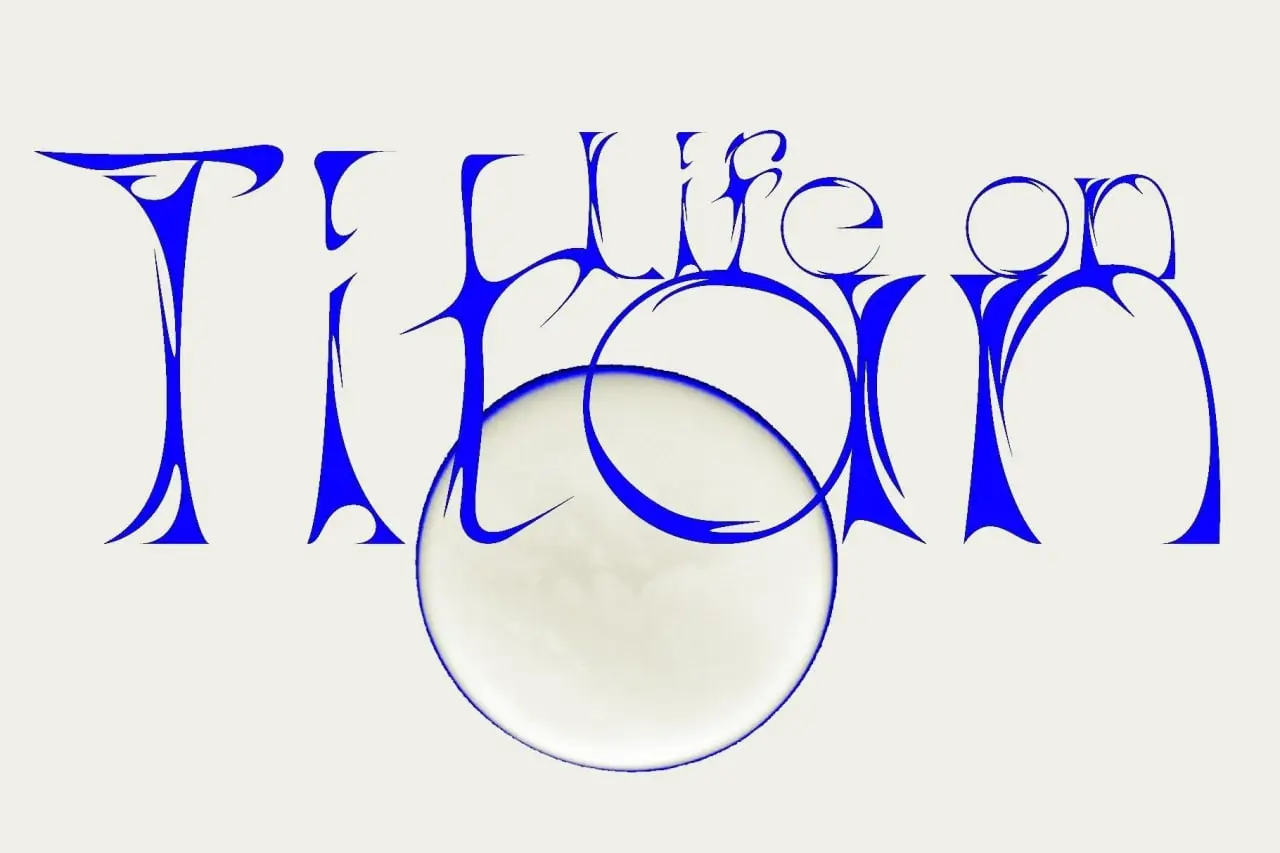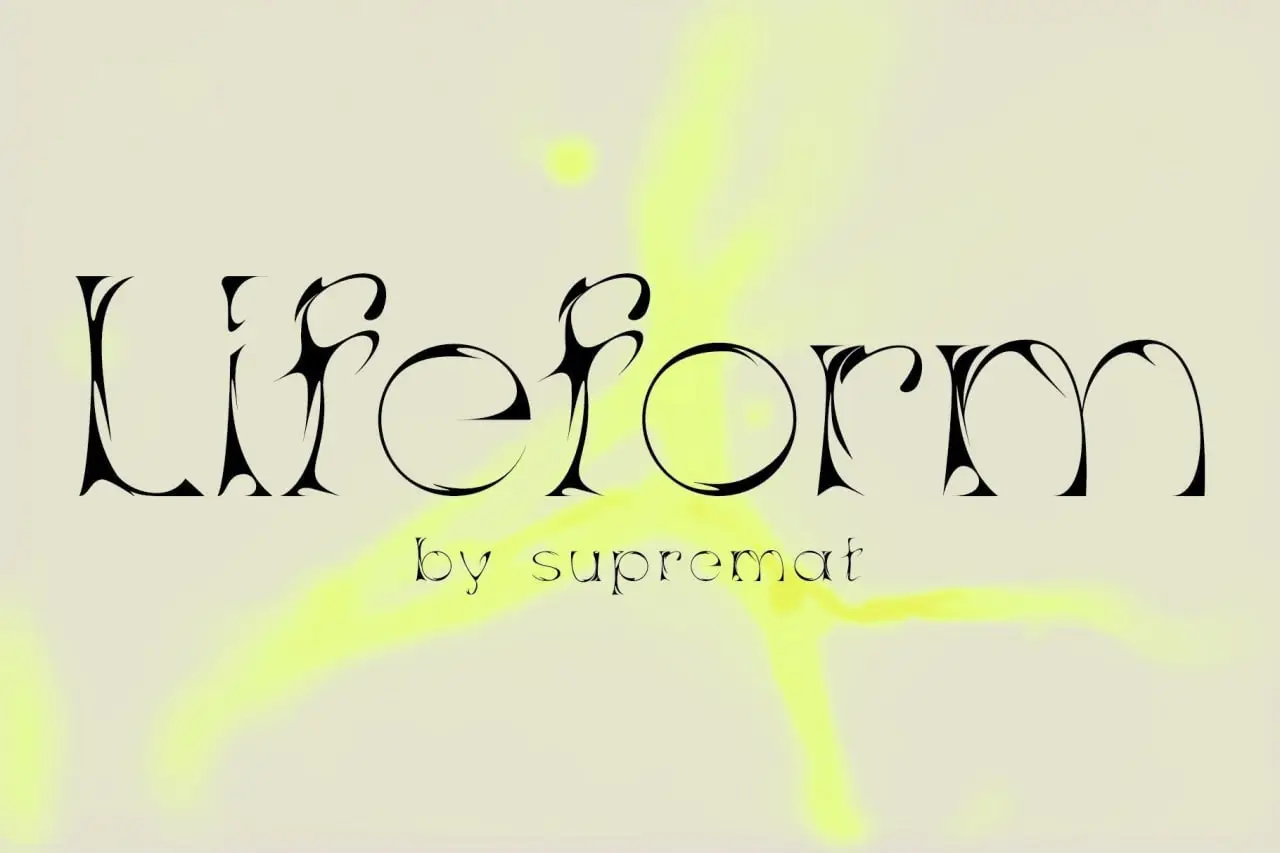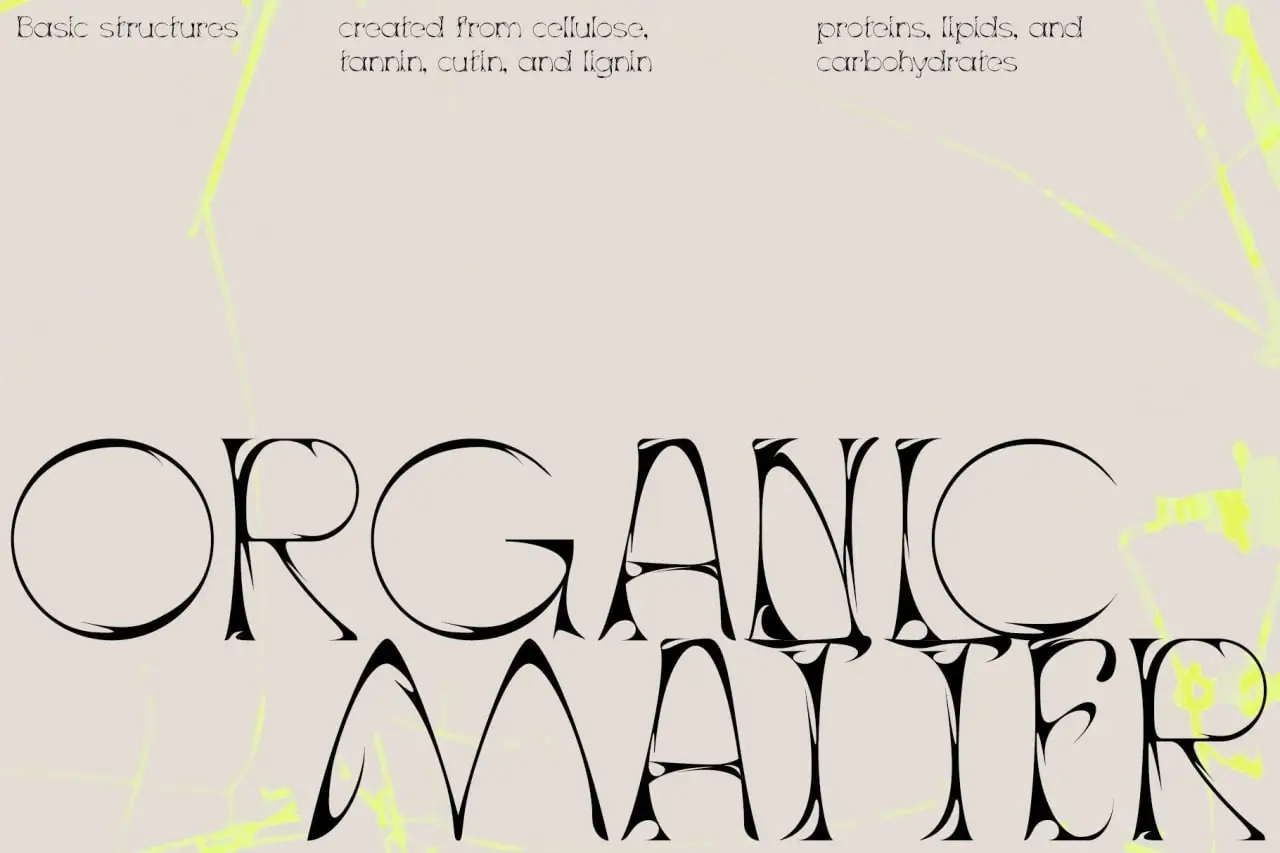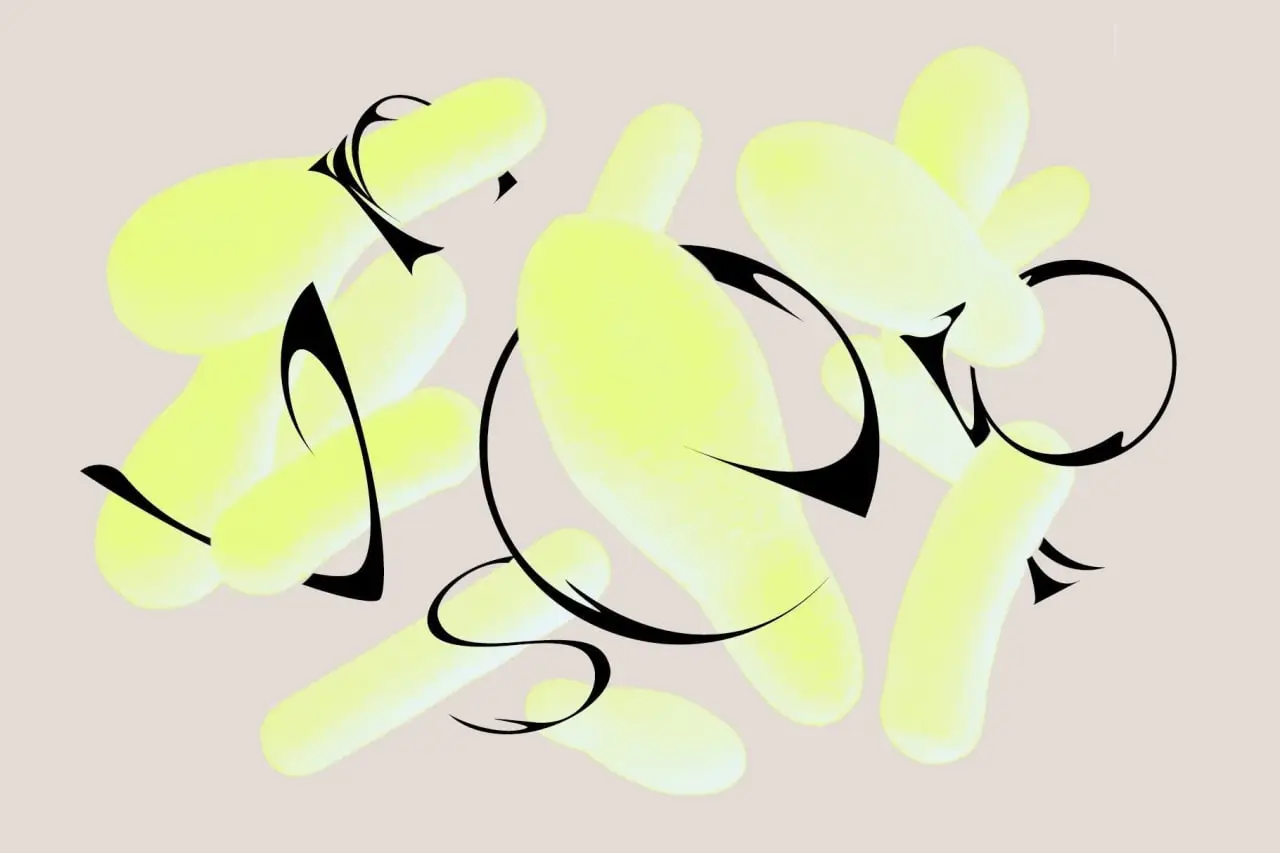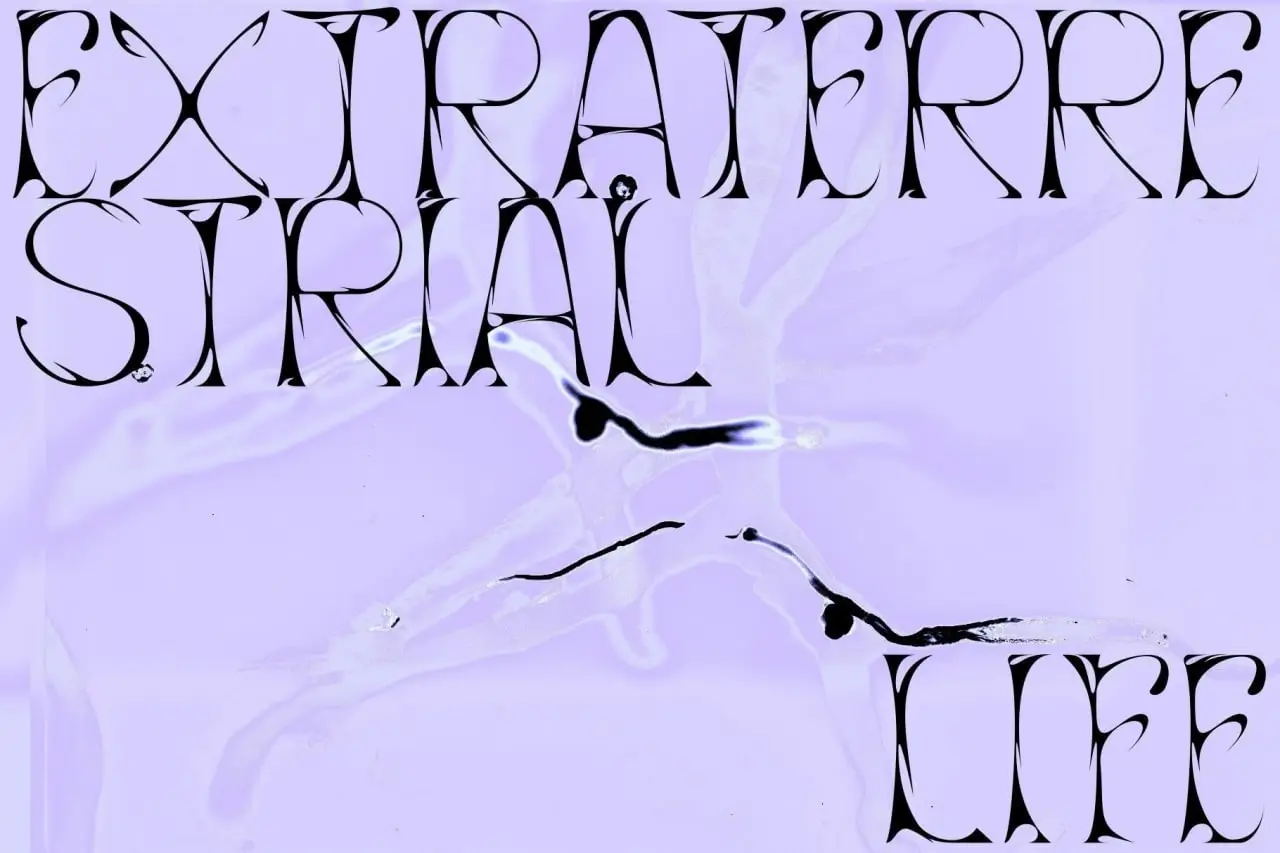
Lifeform Typeface By Supremat
The Lifeform Typeface by Supremat is a unique and modern font designed to add a distinctive touch to your projects. With its clean lines and contemporary aesthetic, this typeface is perfect for a variety of applications, including branding, logos, web design, and print materials.
• Multiple styles and weights for versatility
• High legibility for both digital and print use
• Stylish and contemporary design elements
• Number of glyphs: Extensive character set for multilingual support
• Ideal for creating eye-catching headlines and logos
• Use in web design to enhance user experience with its readability
• Perfect for print materials like brochures, business cards, and posters